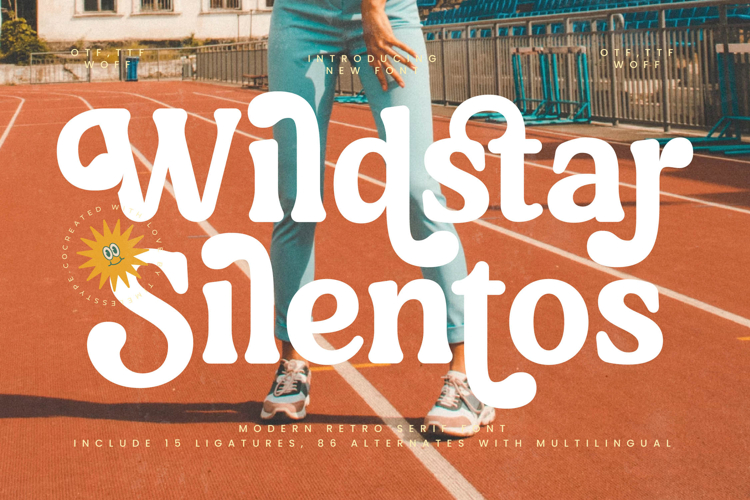
Wildstar Silentos - Modern Retro Serif Font
The Wildstar Silentos Typeface is a modern retro serif font with a bold, playful style full of vintage energy. Featuring 15 ligatures and 86 stylistic alternates, this font gives designers creative freedom to craft typography that is unique, dynamic, and expressive. Its thick letterforms with decorative curved terminals evoke a 1970s retro vibe combined with a modern touch, making it perfect for designs that aim to appear cheerful, stylish, and full of character.
This typeface works beautifully in editorial design, especially for magazine covers, article headlines, and artistic layouts. The alternates and ligatures provide rich variation, ensuring each composition feels alive and distinctive.
In branding and packaging, Wildstar Silentos is ideal for lifestyle products, food & beverages, creative merchandise, streetwear fashion, and youth brands. Its bold retro-modern aesthetic delivers a visual identity that feels fun, warm, and memorable.
For entertainment and promotional design, this font shines on music concert posters, cultural festivals, album covers, and event branding. Its decorative character enhances visual storytelling with an engaging retro-contemporary style.
In the field of digital design, Wildstar Silentos stands out across social media content, website branding, digital advertising, and motion graphics. With multilingual support, it adapts seamlessly to global projects while maintaining stylish consistency.
In short, Wildstar Silentos Typeface is a retro serif display font designed to embody vintage energy, playful charm, and modern flexibility. Perfect for editorial, branding, packaging, entertainment, advertising, and digital campaigns, this font transforms typography into a bold, stylish, and character-rich visual element.